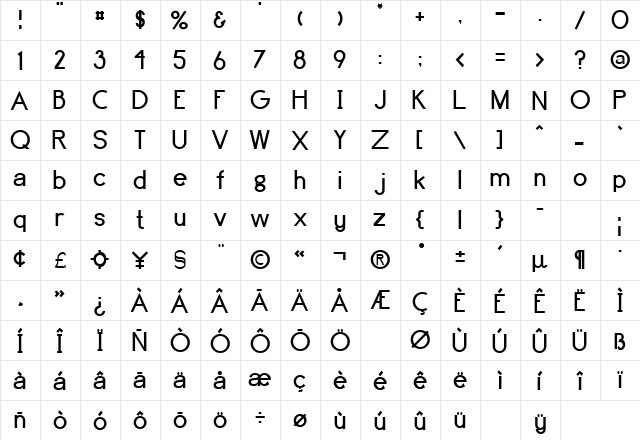
Brassfield Plain
Design Context for Brassfield Typeface
Brassfield offers clean, dependable letterforms without strong stylistic allegiance, making it a practical choice for designers who need flexibility.
Pro Tip: Use Brassfield in both headline and body roles to test its range before committing to a single application.